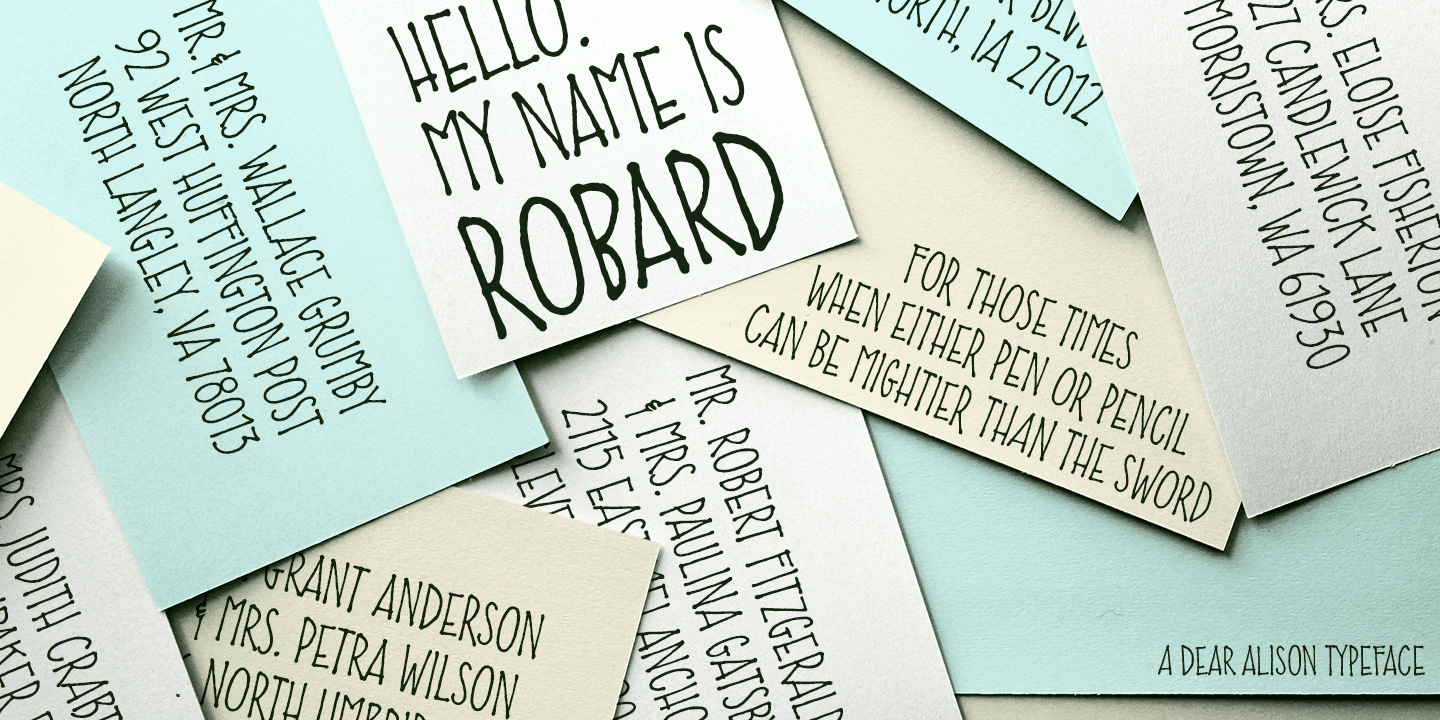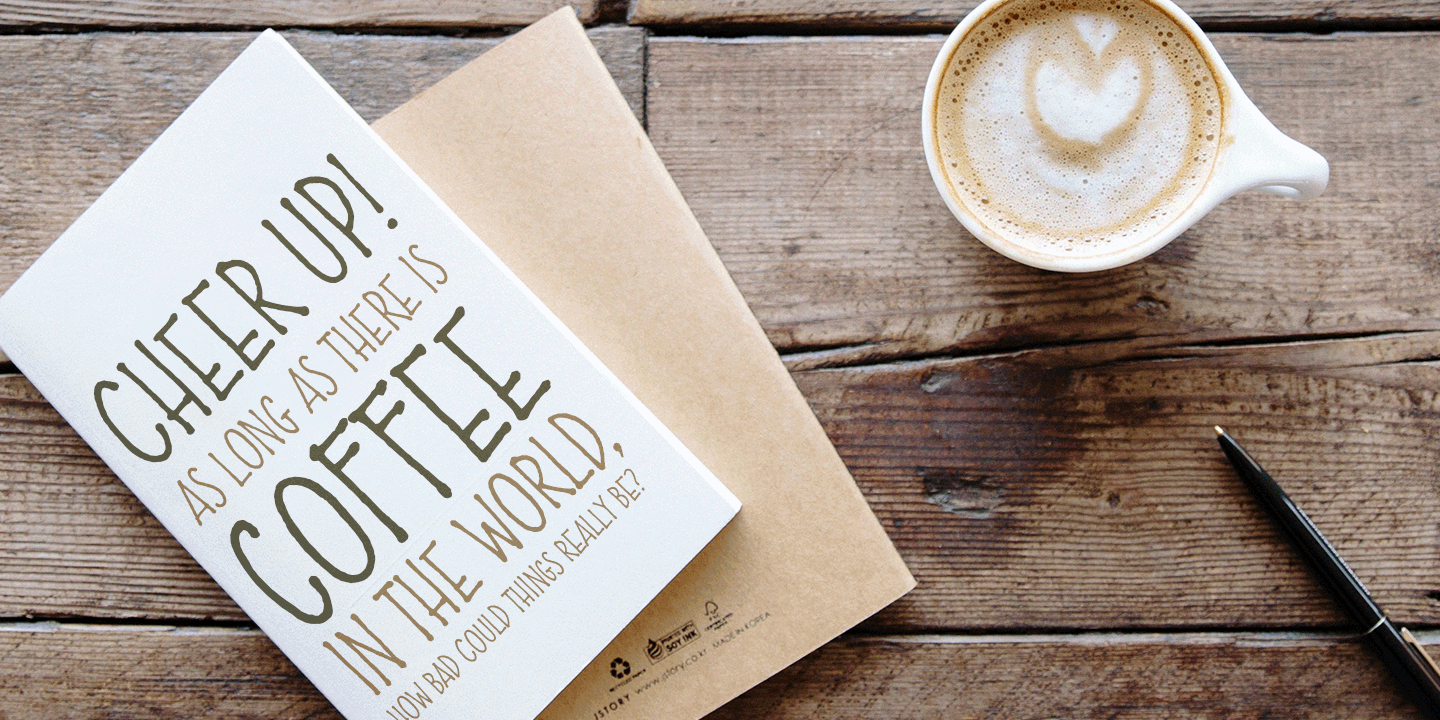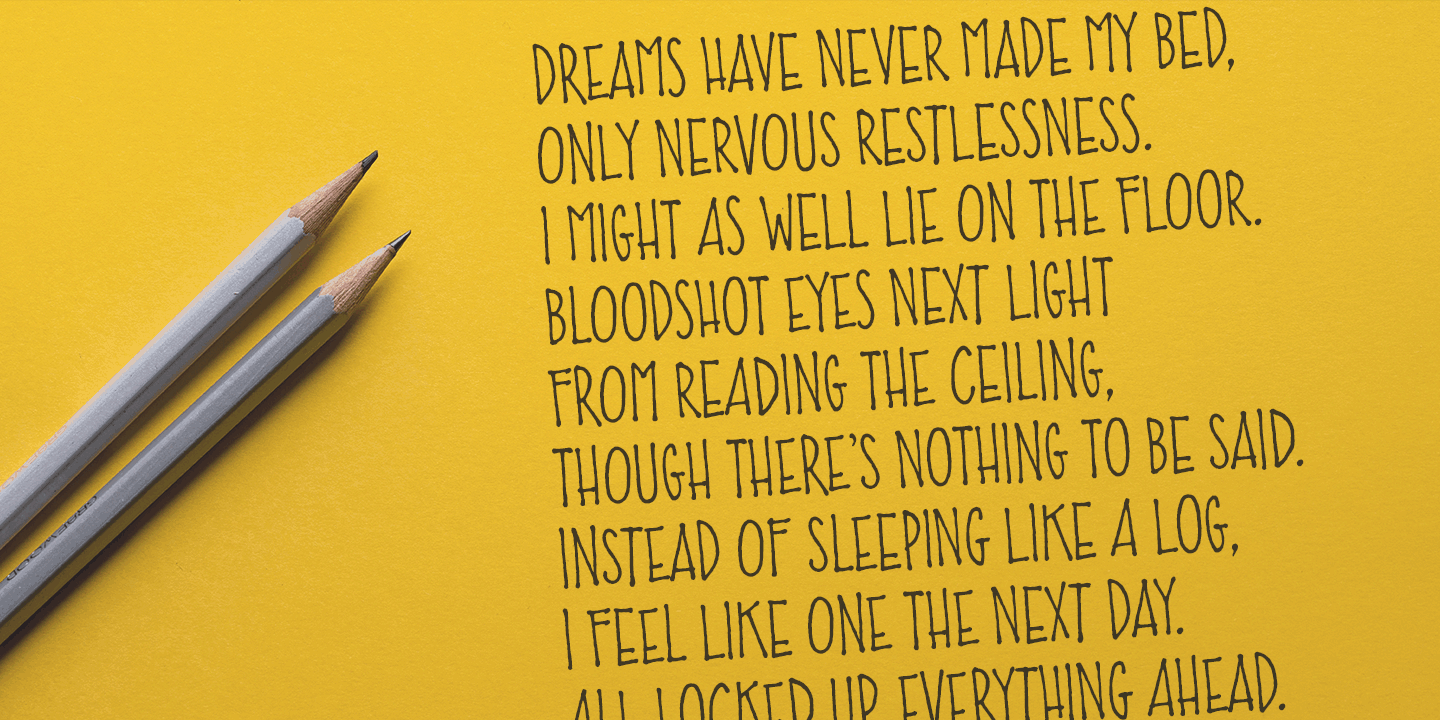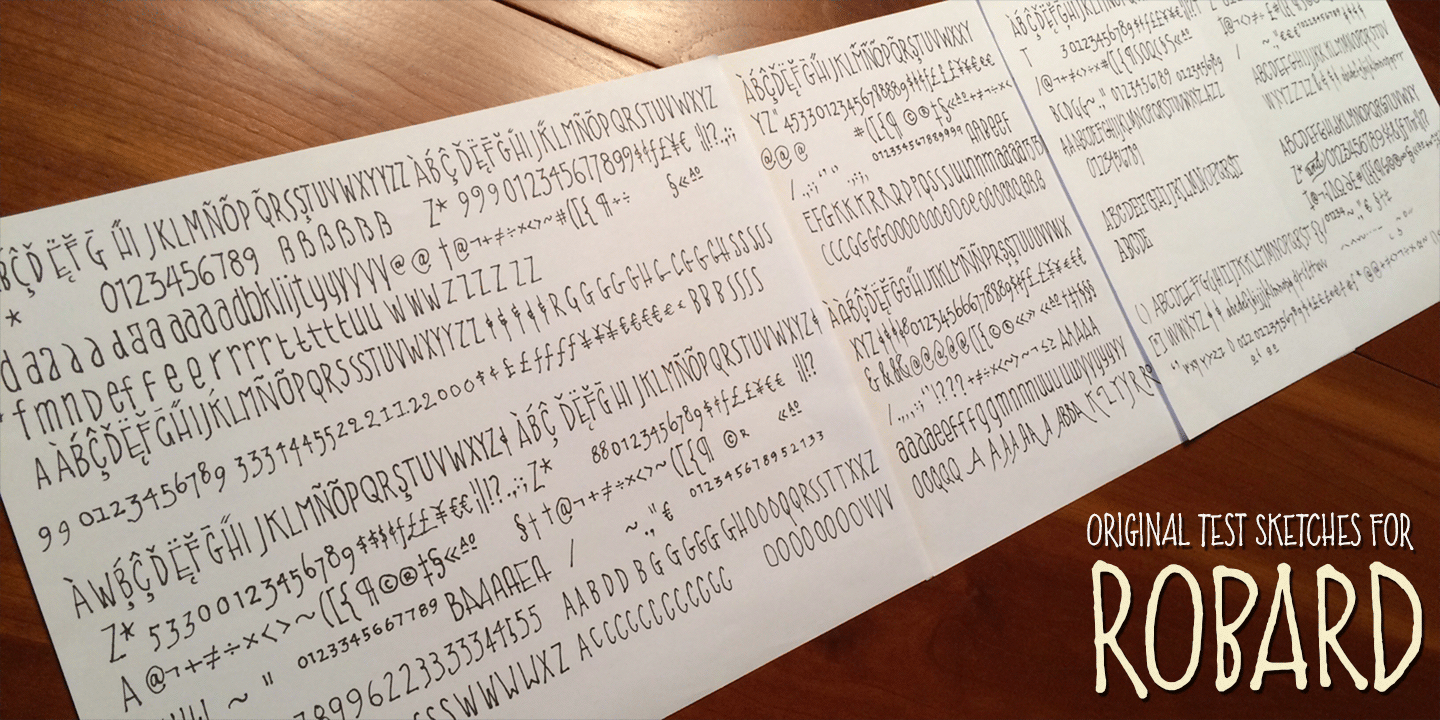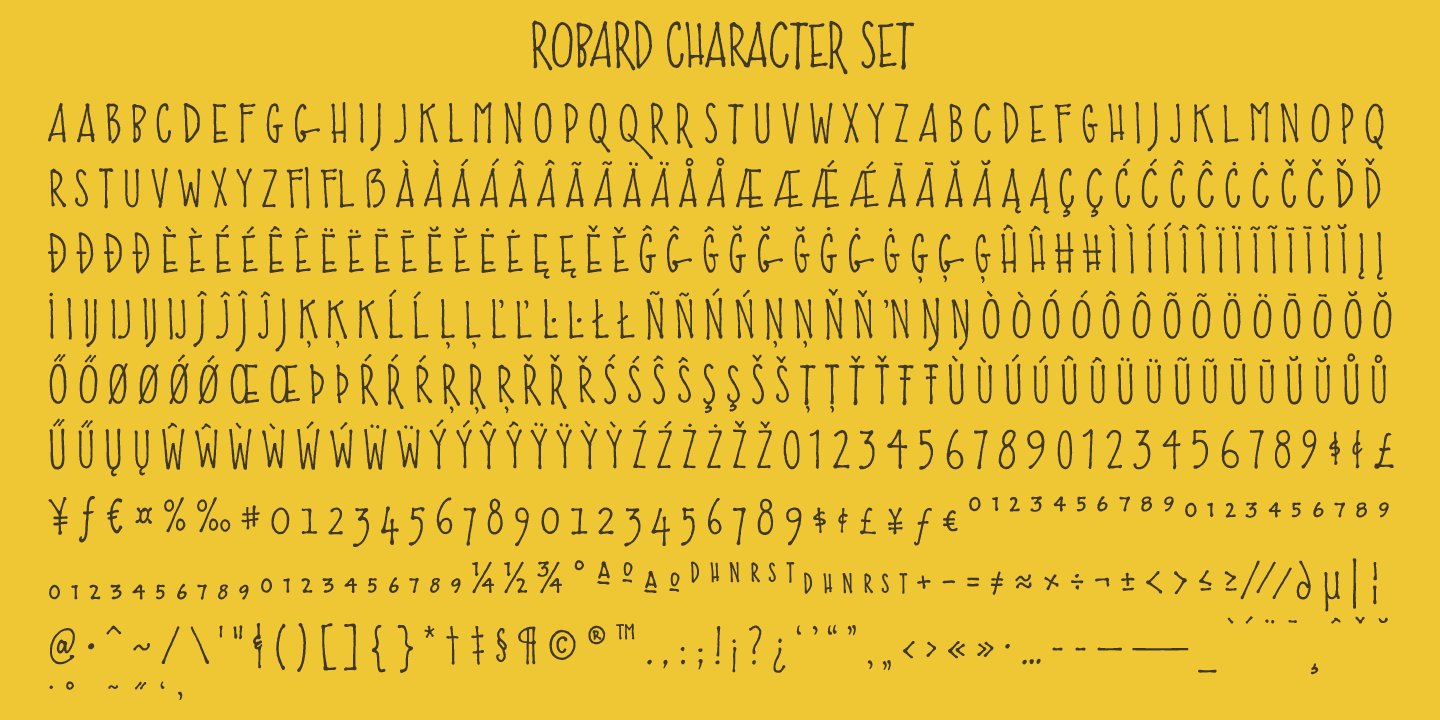
Robard
Font Family by Dear Alison
My brother is an architect, and I have always loved his lettering, you know, the style of writing that can be found on architectural drawings. There is a common thread to it, yet each architect or engineer brings their own personality to it. I have seen a similar style being used by some hand-letterers for invitations, place cards and signage. Inspired, I set out to create my own, and the result is my new typeface, Robard!
I wanted something compact, somewhat modular, done quickly but with control, and sourced from hand-lettering. Starting out with a handful of pigment ink pens, I settled on a 0.1mm Copic Multi-Liner, and using a light table with a grid underneath the paper, I cranked out grouping after grouping, letter after letter, numbers, punctuation, accents, just trying to zero in on the feeling and the look I was after. There were some ideas that didn't work, like unicase (there would be no regular lowercase), or swash alternates. Ultimately, I ended up with a decent array of glyphs to choose from, and alternates like oldstyle numbers, and an alternate set of caps for the lowercase slots, and even alternative figures so doubles like 88 would be different.
In the font, the OpenType ligature code automatically alternates the cap and lowercase (alternate cap) letters, and numbers as you type, lending Robard that hand-lettered look in a digital typeface that I was hoping for. There are also oldstyle figures, and unlimited fractions, ordinals, and a few alternate letters.